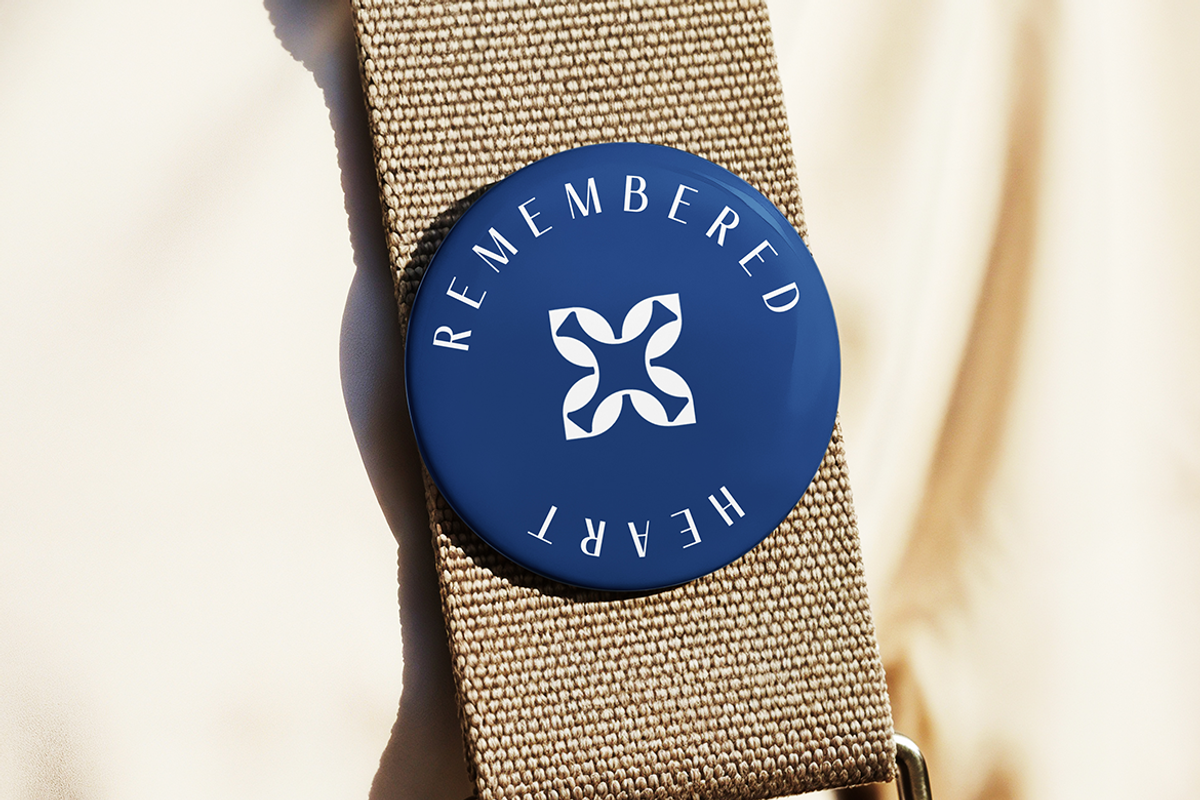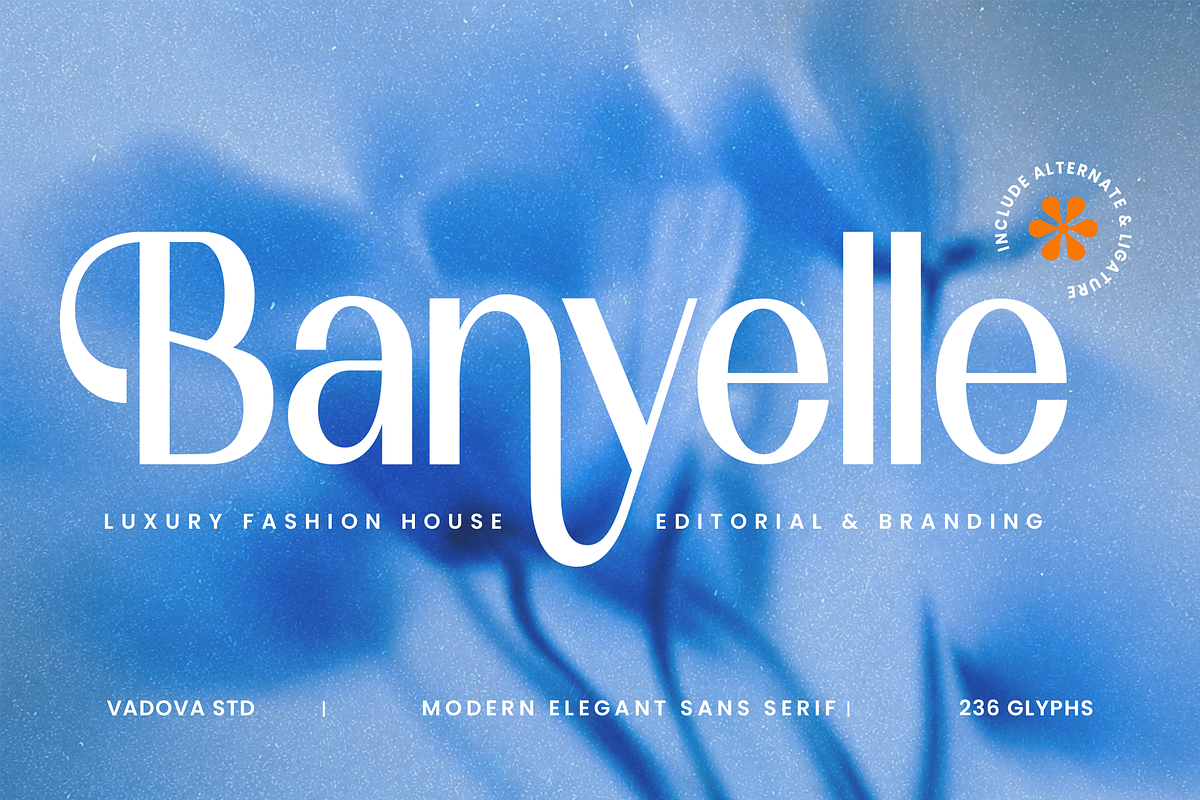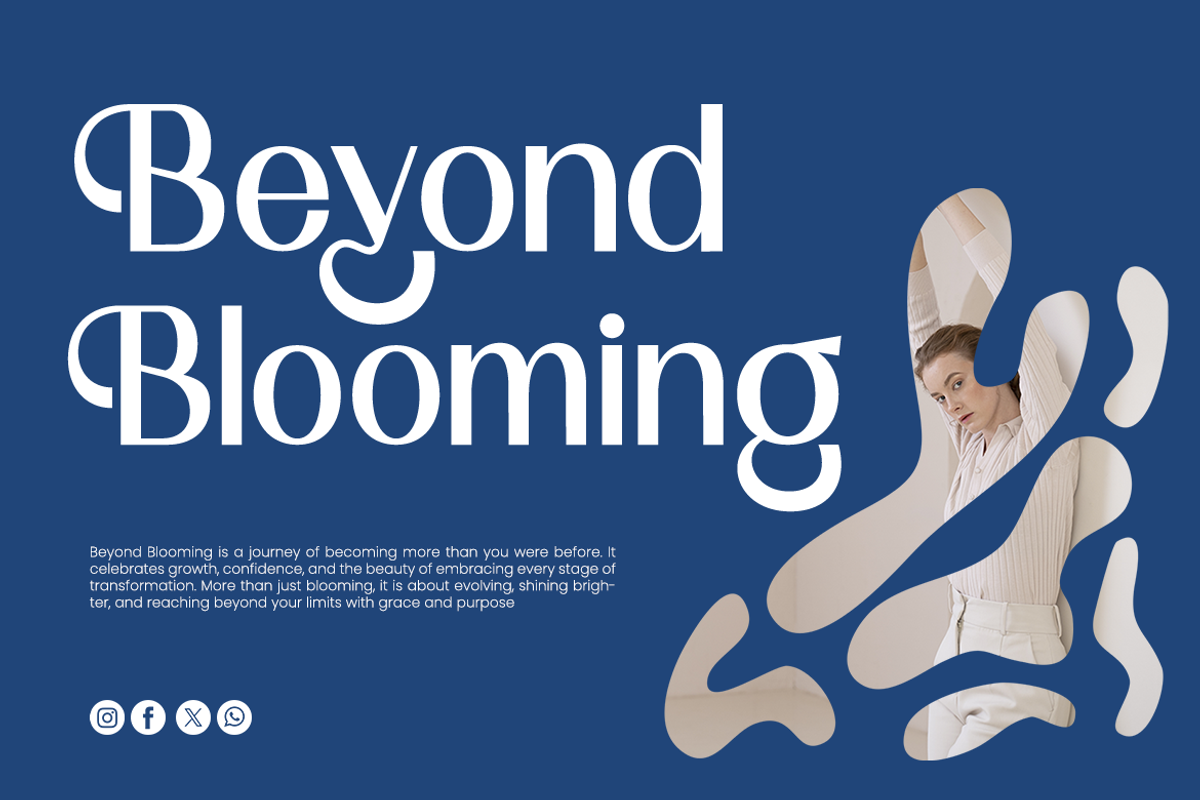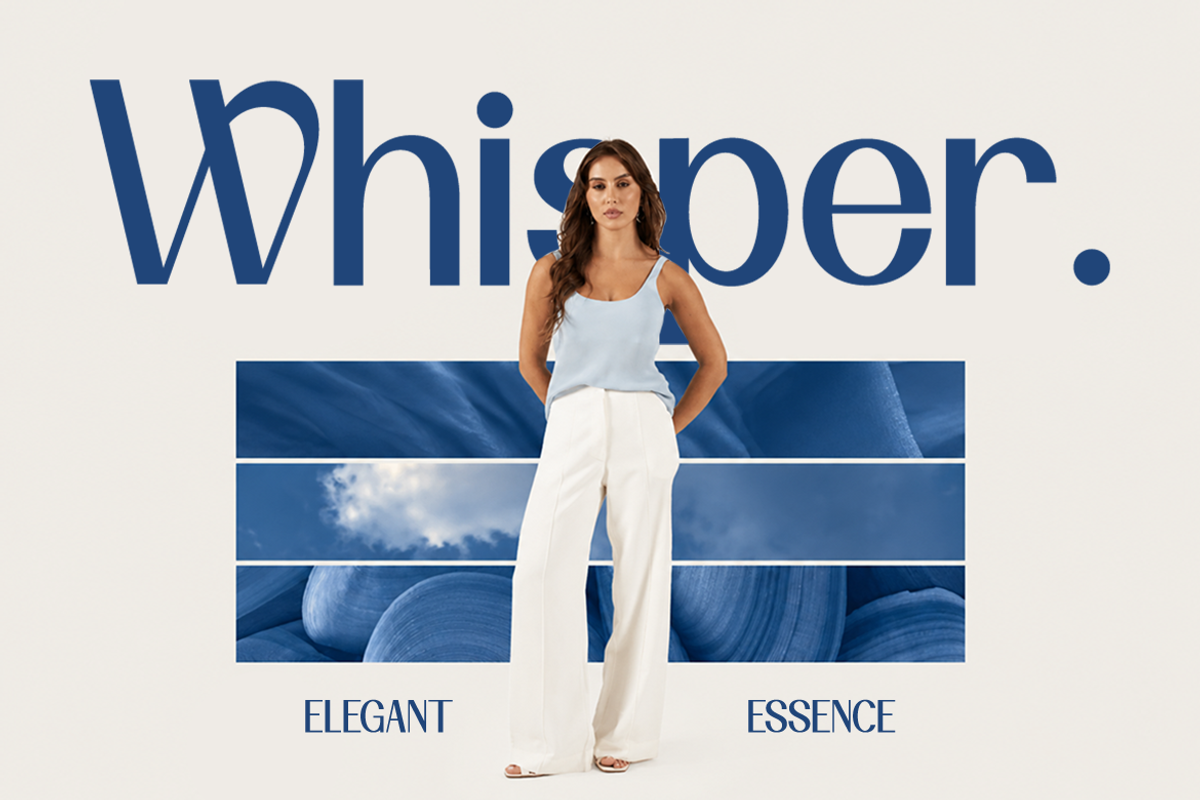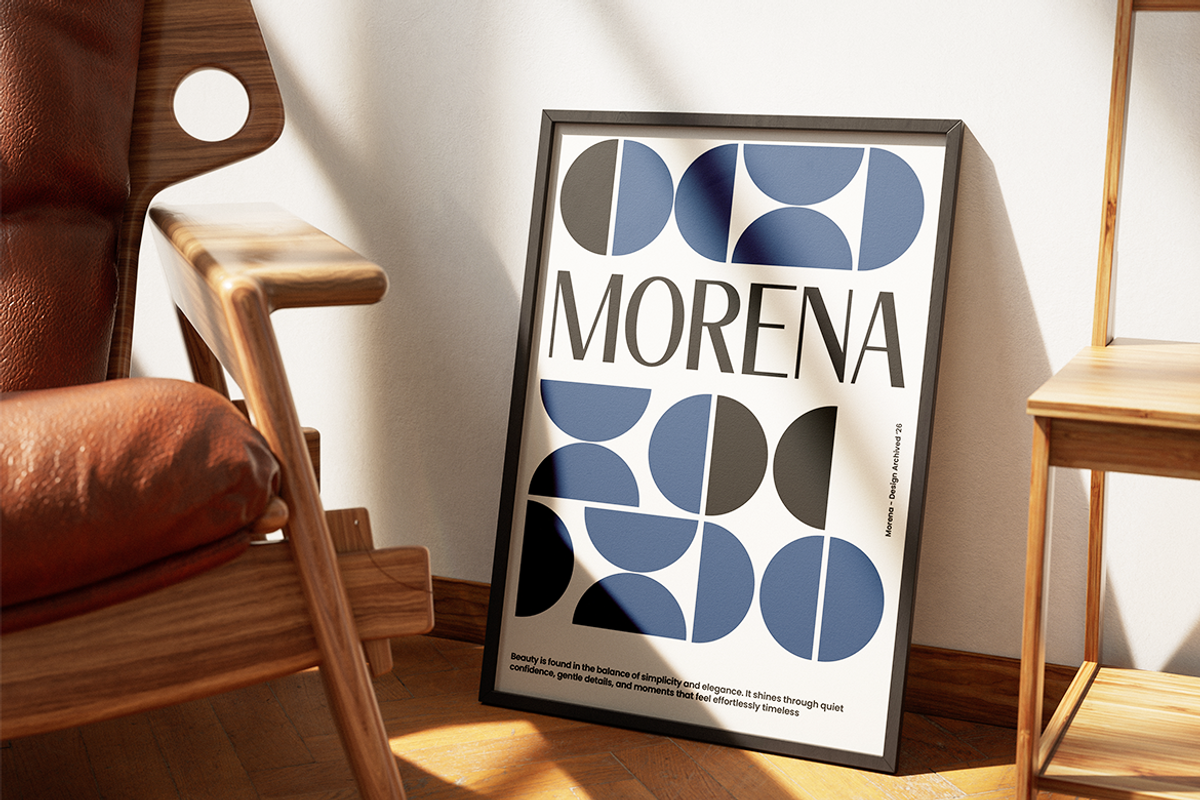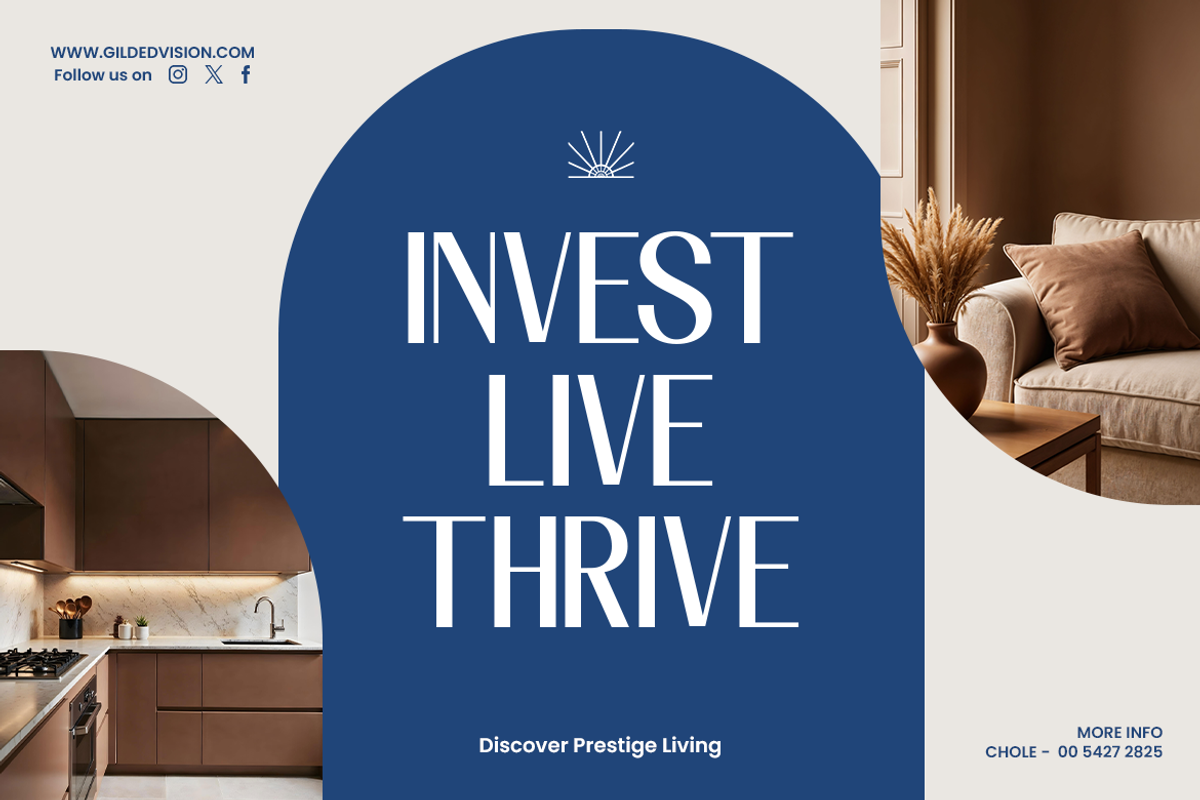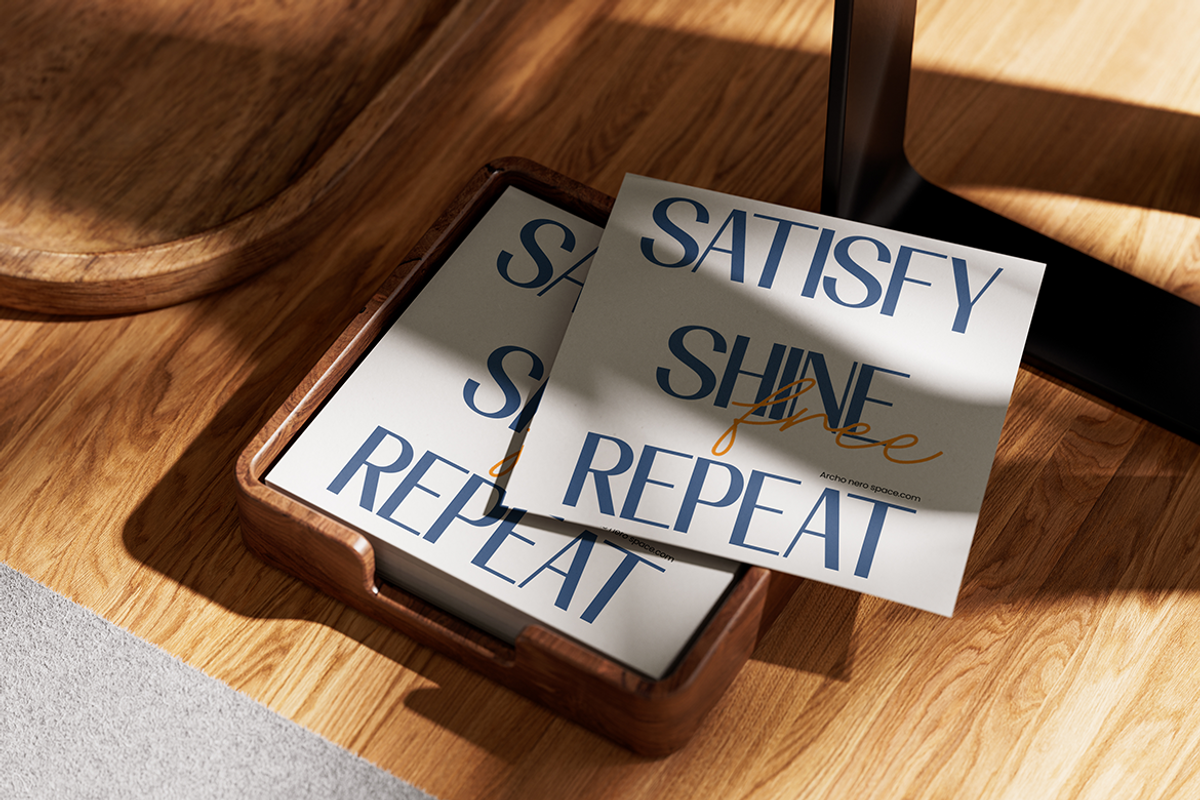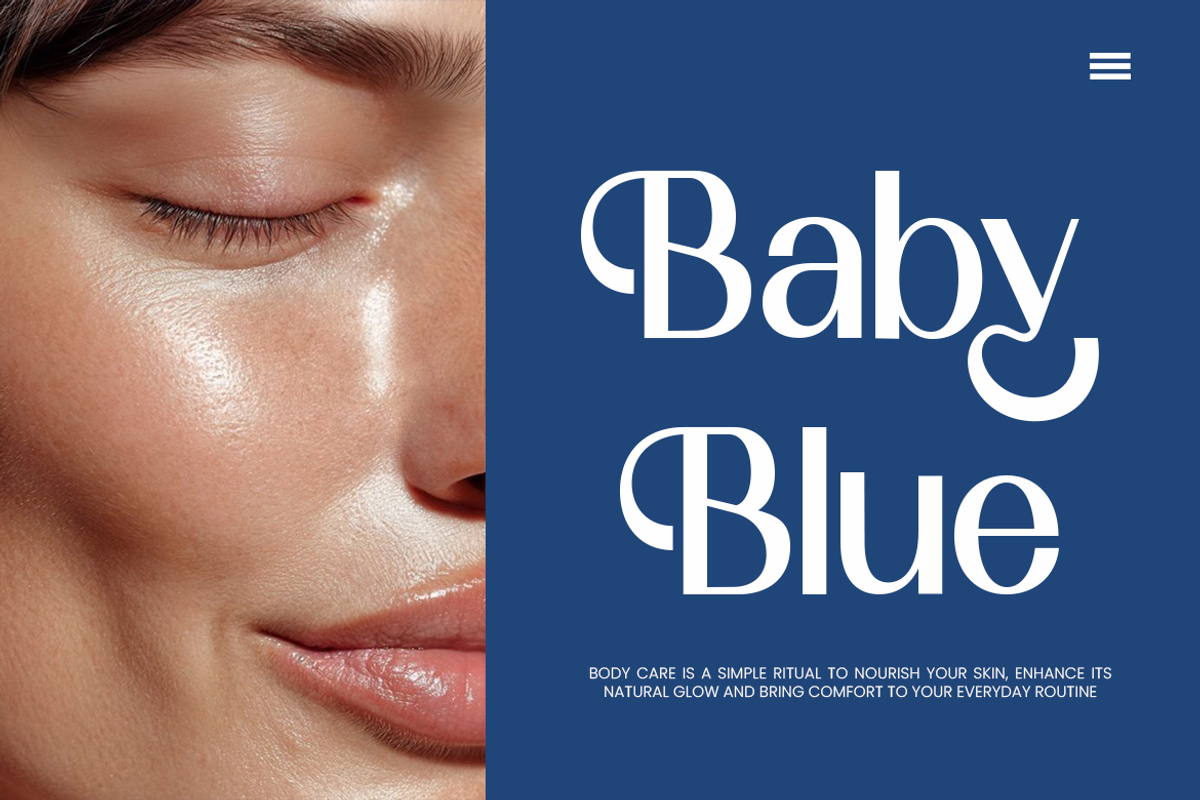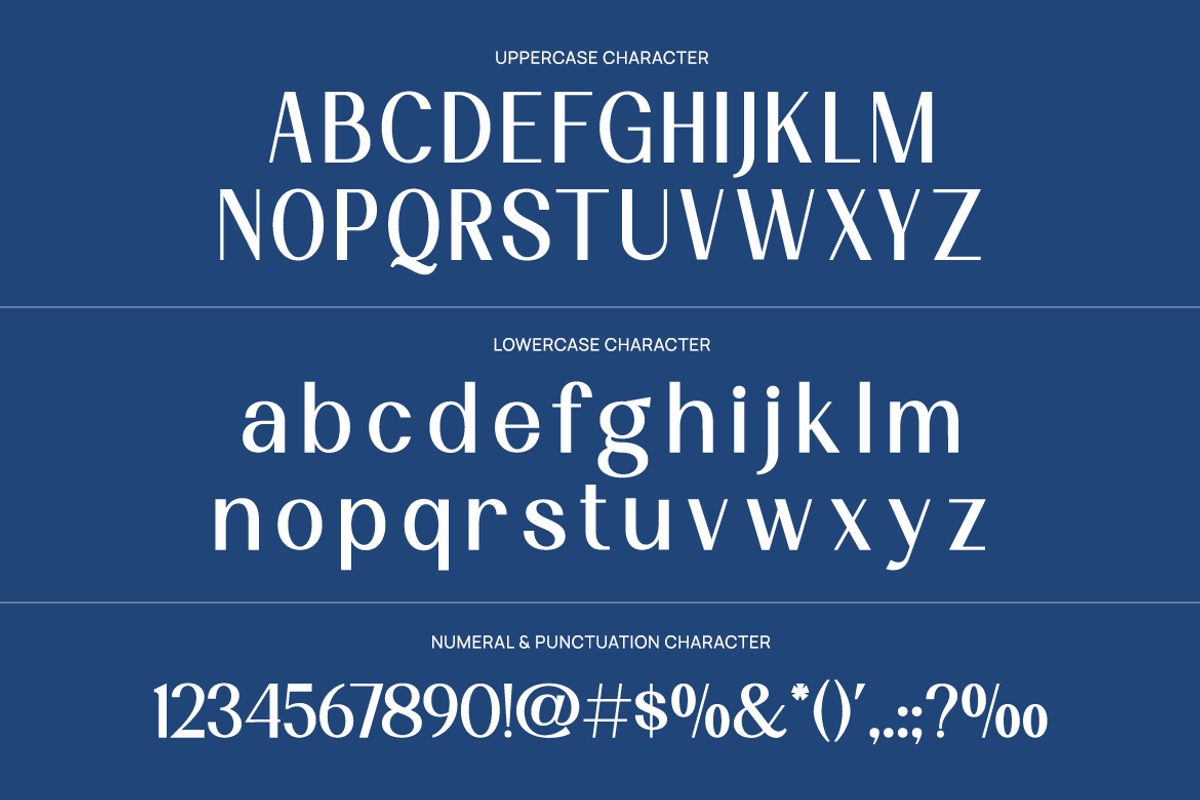
Banyelle Modern Elegant Sans Font
Banyelle Modern Elegant Sans Font is a sophisticated display typeface that combines modern sans serif construction with graceful proportions and refined luxury details. The design features high contrast between thick and thin strokes, elongated vertical forms, and distinctive alternate characters that introduce an editorial and fashion-forward personality. Its clean structure is enhanced by subtle calligraphic influences and carefully crafted curves, creating typography that feels elegant, contemporary, and premium.
The tall letterforms and balanced spacing give headlines a light and luxurious appearance, while the alternate glyphs add uniqueness for logo design and creative branding applications. Banyelle includes 236 glyphs, uppercase and lowercase characters, numerals, punctuation, ligatures, and stylistic alternates. The typeface is designed to deliver a polished visual identity for luxury brands while maintaining excellent readability in large display compositions and sophisticated editorial layouts.
Elegant modern sans serif design with elongated, fashion-inspired letterforms
Distinctive alternates and ligatures that add an editorial and luxury personality
Soft curves and refined stroke transitions for a graceful, premium appearance
Balanced proportions and open spacing for readability in branding and display use
Includes 236 glyphs for flexible logo, packaging, and high-end identity applications
Luxury fashion branding and boutique visual identity systems
Editorial magazines, lookbooks, and high-end publishing layouts
Beauty, skincare, and fragrance packaging with sophisticated typography
Elegant logo design, monograms, and premium product labeling
Wedding stationery, invitation suites, and lifestyle branding materials
Website headers, portfolio presentations, and refined digital branding projects
Supports numerals, punctuation, and extensive symbol set
Express sophistication with Banyelle bring refined elegance to visual identities